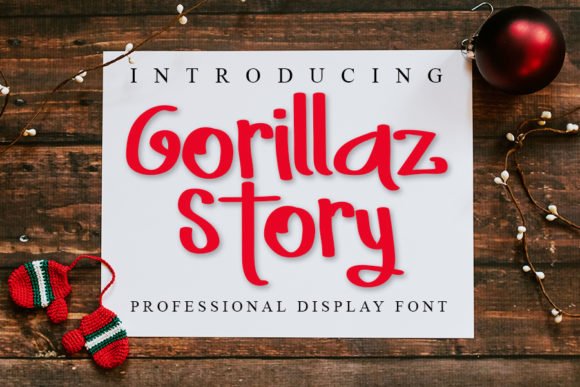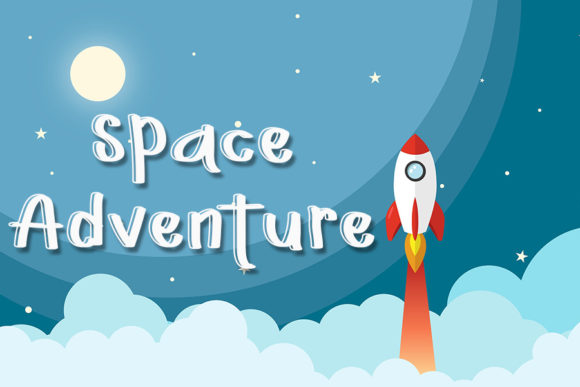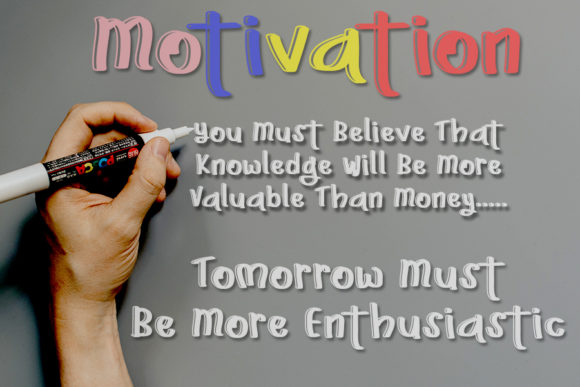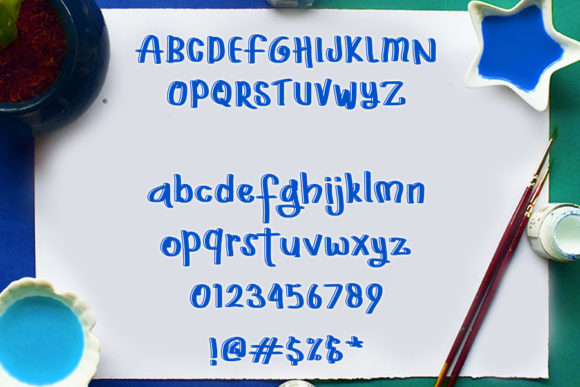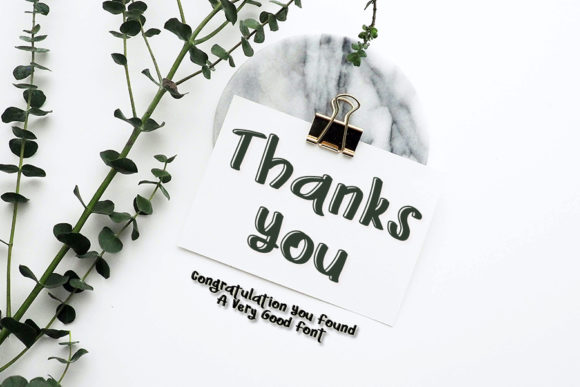
The Perfect Blend of Whimsy and Design
Have you ever found yourself scrolling through social media, feeling uninspired by the same old fonts used in every design? You know, that moment when you just want to create something truly unique and eye-catching. For designers, this is a common struggle – but what if we told you that we’ve got just the thing to shake things up?
Meet Gorrilaz Story Font, a modern and fun display font designed to add a touch of whimsy to your designs. This charming font is perfect for adding personality to your branding, advertising, or even just a fun social media post. Whether you’re a seasoned designer or just starting out, Gorrilaz Story Font is a valuable addition to your toolkit – and we’re excited to dive into what makes it so special.
Gorrilaz Story Font Key Features
- Font Family: Gorrilaz Story is a sans-serif font family, designed to be versatile and modern.
- Character Set: The font family includes a wide range of characters, including Latin, Cyrillic, and Greek alphabets, making it suitable for multilingual designs.
- Size: Gorrilaz Story comes in 4 font weights: Light, Regular, Medium, and Bold, providing flexibility for different design requirements.
- Resolution: Designed to be scalable, Gorrilaz Story is suitable for use in various resolutions, from low-resolution screens to high-resolution printing.
- Unique Characteristics: The font features a unique, hand-drawn feel with subtle irregularities, giving it a distinctive and eye-catching appearance.
Gorillaz Story Font Review
As a designer, I was excited to dive into the Gorillaz Story Font, a font designed specifically for use in graphic novels and comics. Here’s my honest review.
- ✨ Unique aesthetic: The font has a quirky, hand-drawn feel that’s perfect for capturing the spirit of a graphic novel.
- ✨ Versatility: The font comes in a range of weights and styles, making it easy to use in different contexts.
- ✨ Customizable: The font can be customized to fit your specific project needs, including adjusting the spacing and kerning.
- ⚠️ Limited legibility: At smaller sizes, the font can be difficult to read, which may be a problem for certain projects.
- ⚠️ Limited support: The font may not be supported in all software or operating systems, which could cause compatibility issues.
The Gorillaz Story Font is a fun and creative tool for graphic novelists and comic book artists. While it has some limitations, its unique aesthetic and versatility make it a great choice for projects that require a quirky, hand-drawn feel.
To get the most out of the Gorillaz Story Font, try using it in combination with other bold, playful fonts to create a unique and eye-catching design.
Experiment with different font sizes and colors to add depth and interest to your text.
The Gorillaz Story Font is perfect for:
Music and entertainment-related designs (e.g., album artwork, concert posters)
Children’s book illustrations and educational materials
Playful branding and advertising designs